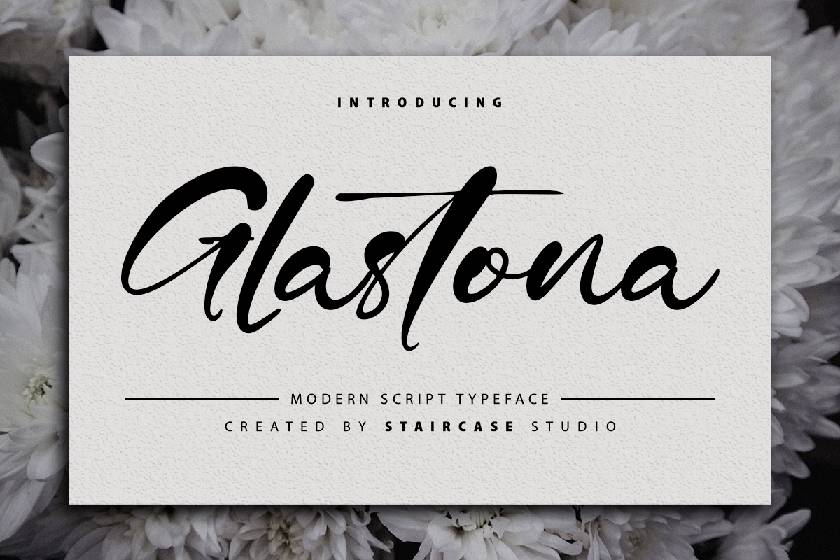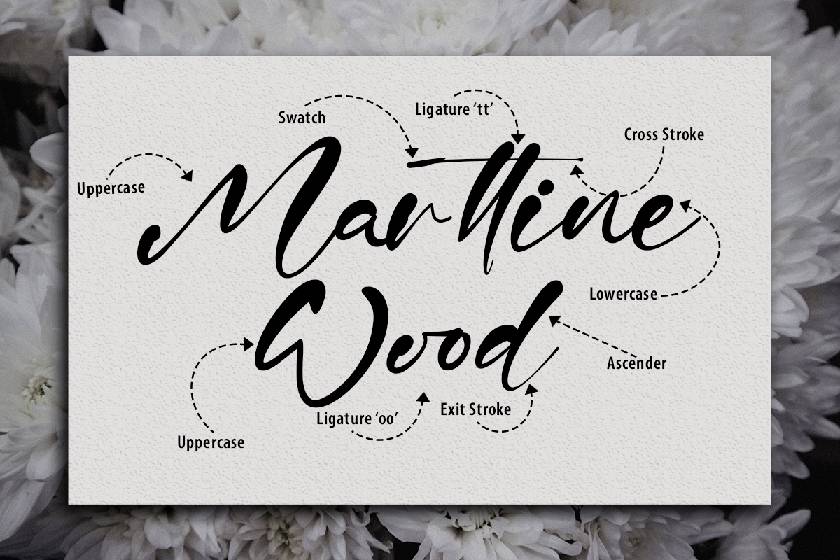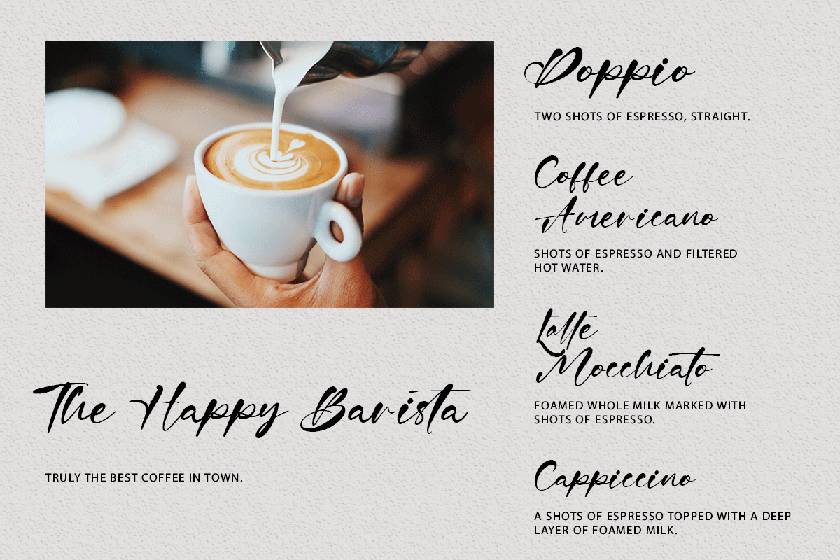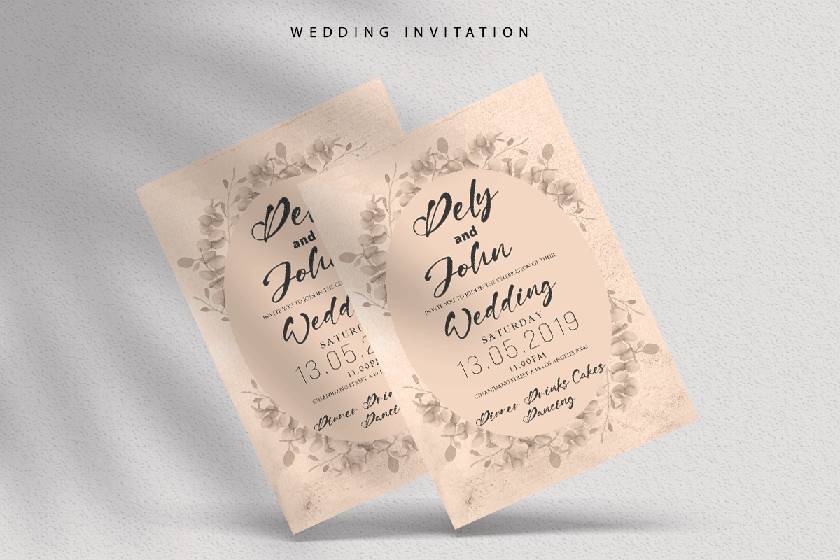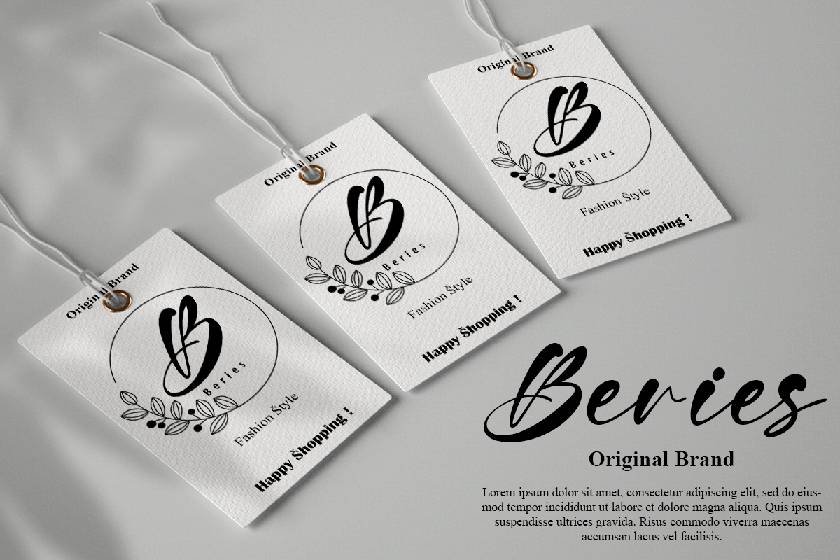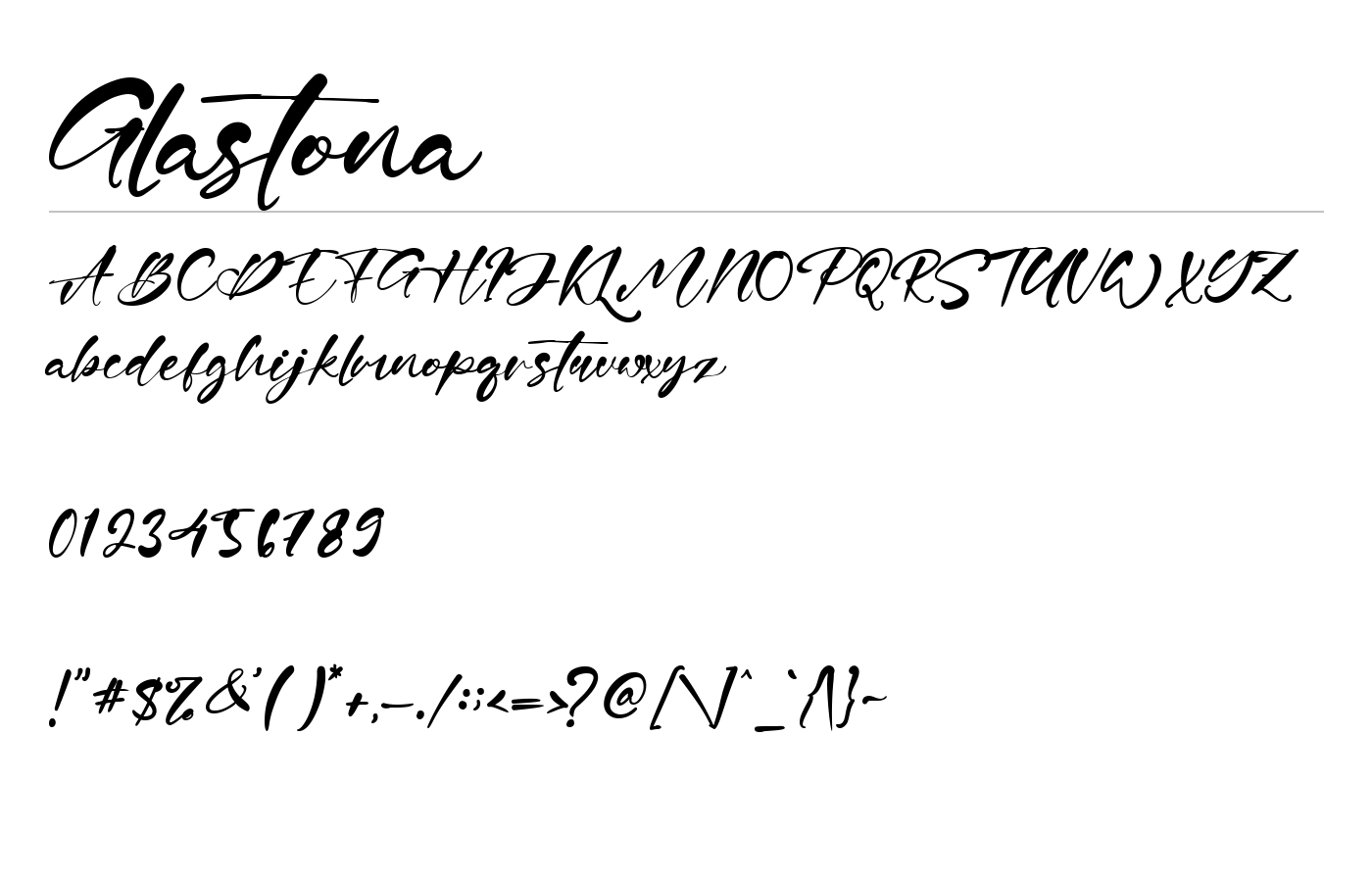
Glastona is a stylish script font that combines smooth, flowing strokes with a lively, hand-drawn feel. Its elegant letterforms and varying line thicknesses make it perfect for adding a personal, artistic touch to invitations, branding, and creative projects where a modern yet warm vibe is desired. This font works well in display settings, bringing sophistication and charm to headlines and logos.
Glastona Font
About Glastona Font
| Font family | Glastona Font |
| Release date | 2021-12-27 |
| Designer | Staircase Studio |